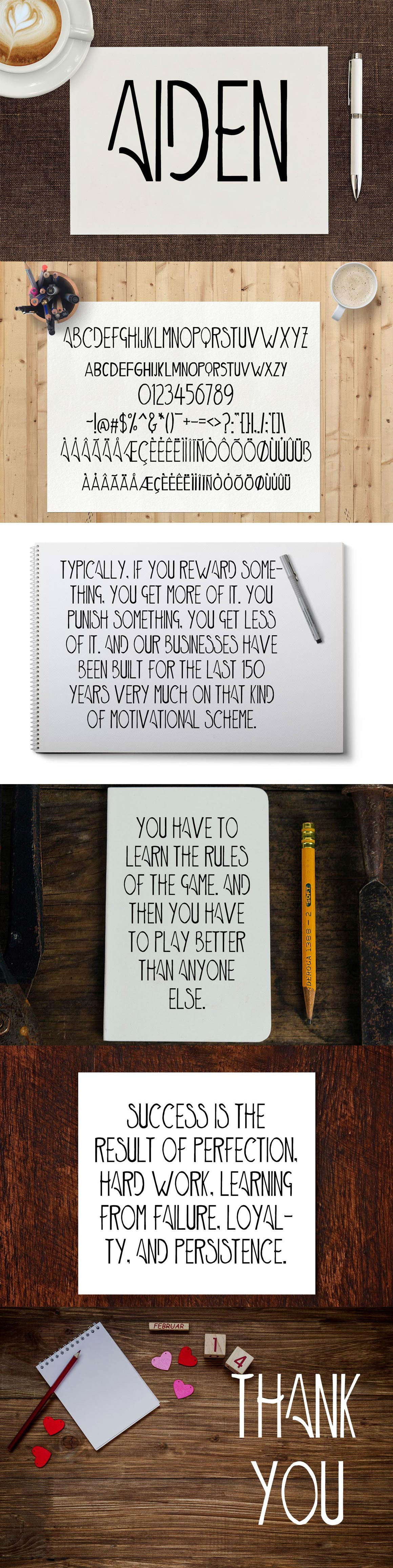
Aiden Art-Deco Font
Aiden is an Art-Deco font and it can be very useful in making creative banners and display. Aiden font is modernized and constructed for modern projects. Variation in letter width creates a pleasant rhythm. Excellent for headlines, logos and large type. The flowing characters are ideal to make an attractive message, mix and match Cornish with a bunch of alternative characters to fit your project. Aiden is perfect for logotype, gig poster, letterhead, drop cap, titles, and any artworks.